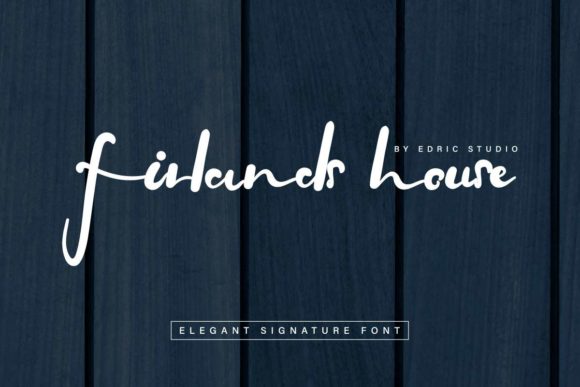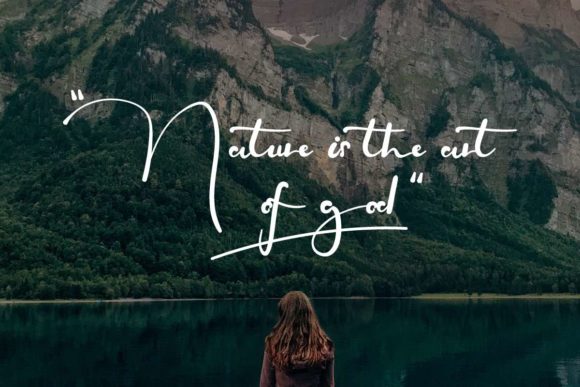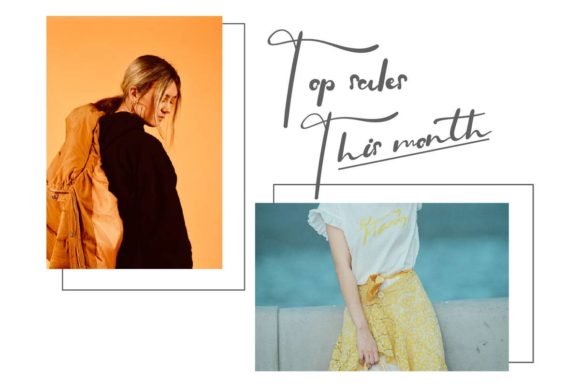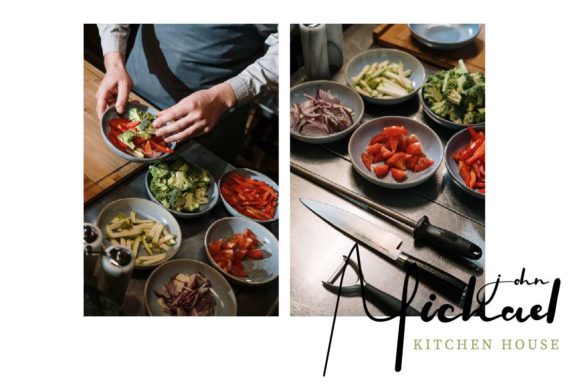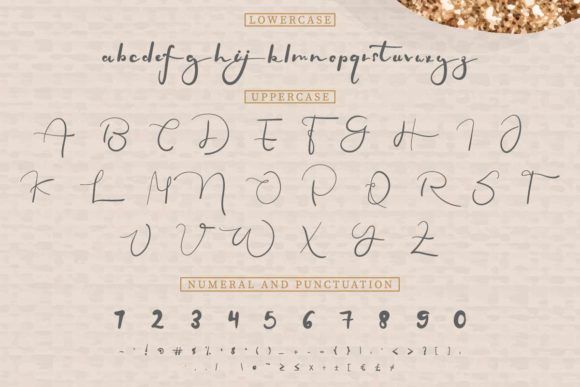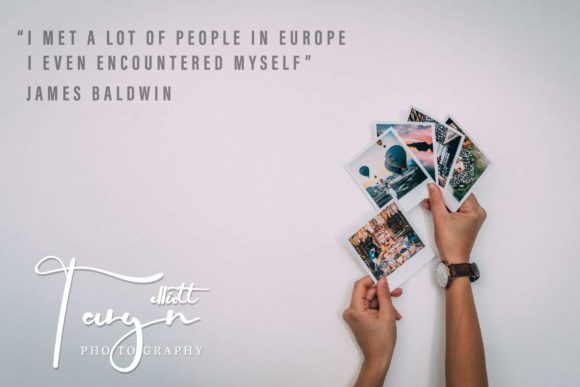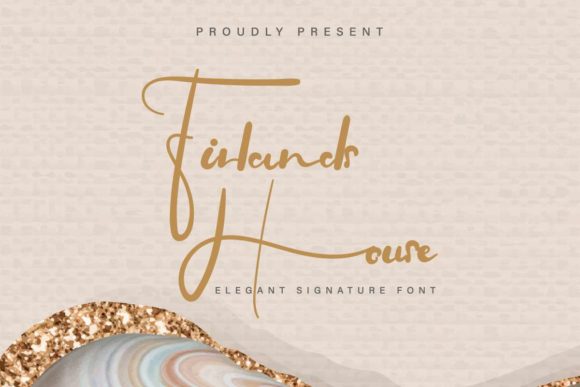
Firlands House Font: Elevate Your Designs with Elegance and Sophistication
In the world of typography, a font can make or break a design. It’s the perfect blend of style, elegance, and personality that can elevate a project from ordinary to extraordinary. If you’re a designer or crafter looking for a font that exudes class and sophistication, look no further than Firlands House Font. This exquisite handwritten font is masterfully designed to become a true favorite, offering the perfect balance of traditional calligraphic influences and modern freshness.
The Essence of Firlands House Font
Firlands House Font is a beautiful, handcrafted typeface that boasts a unique charm. Its classy calligraphic influences are evident in its flowing lines and elegant strokes, yet it feels remarkably contemporary and fresh. This font is perfect for designers and crafters who want to add a touch of sophistication and whimsy to their projects. Whether you’re working on a branding project, a wedding invitation, or a craft project, Firlands House Font is sure to impress.
Key Features of Firlands House Font
- Handwritten Elegance: Firlands House Font is a handwritten font that offers a personal and intimate feel, perfect for adding a touch of warmth and personality to your designs.
- Classy Calligraphic Influences: The font’s calligraphic roots are evident in its elegant strokes and flowing lines, giving it a sophisticated and refined feel.
- Contemporary and Fresh: Despite its classic influences, Firlands House Font feels remarkably modern and fresh, making it perfect for a wide range of design applications.
- Versatile: This font is incredibly versatile and can be used for a variety of projects, from branding and advertising to packaging, invitations, and more.
Why Choose Firlands House Font?
With so many fonts available, why choose Firlands House Font? Here are just a few reasons why this font stands out from the crowd:
- Unique and Eye-Catching: Firlands House Font is a true standout, offering a unique and eye-catching style that’s sure to grab attention.
- Easy to Read: Despite its elegant and cursive nature, Firlands House Font is remarkably easy to read, making it perfect for body text and headlines.
- Highly Versatile: This font can be used for a wide range of design applications, from digital projects to print materials.
- Exceptional Quality: Firlands House Font is crafted with exceptional quality and attention to detail, ensuring a flawless and professional finish.
- Use it for Headlines and Titles: This font is perfect for headlines and titles, where its elegant and sophisticated style can really shine.
- Add it to Your Branding: Firlands House Font is a great addition to any brand’s typography, offering a unique and memorable style that can help to establish your brand’s identity.